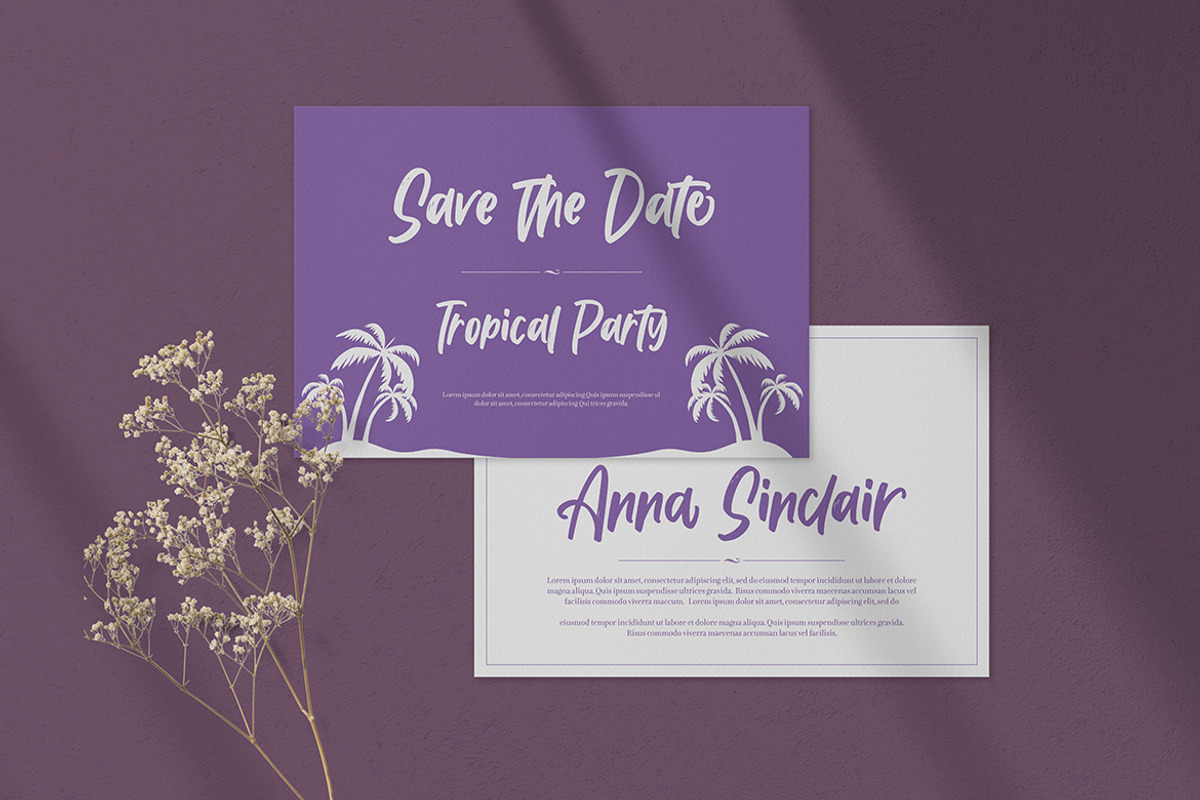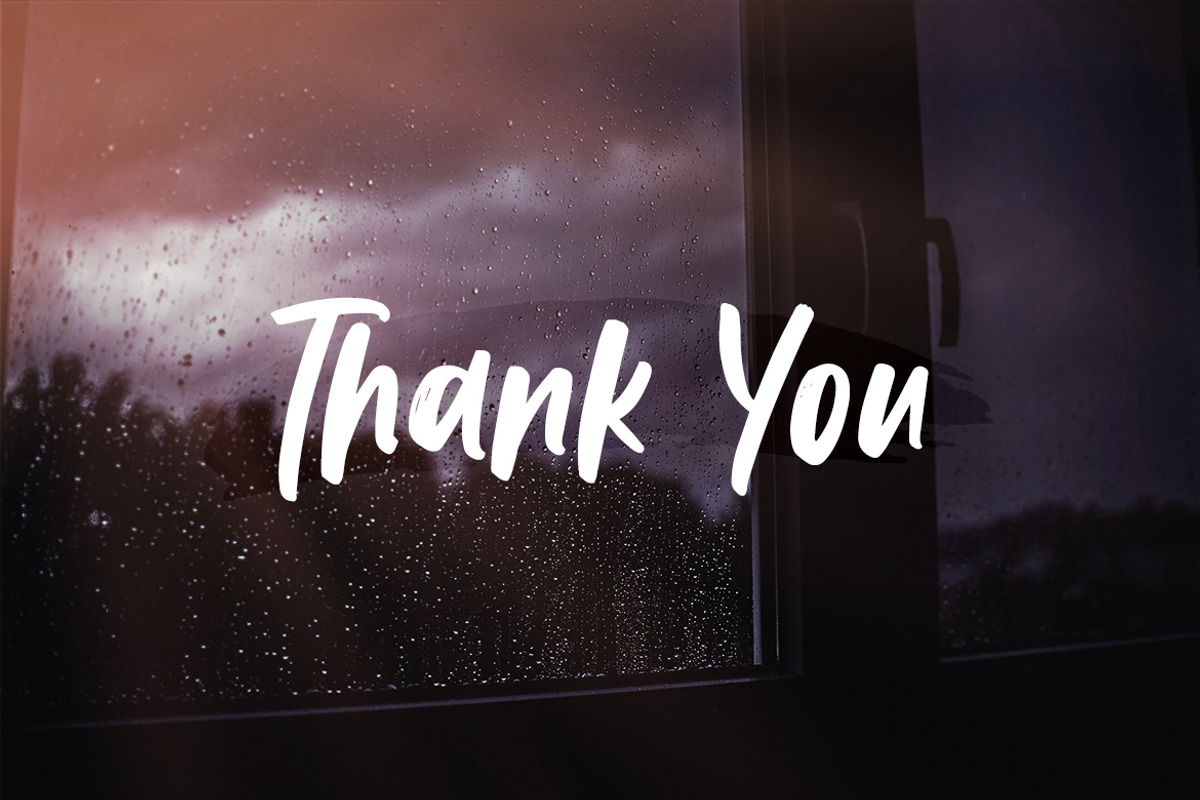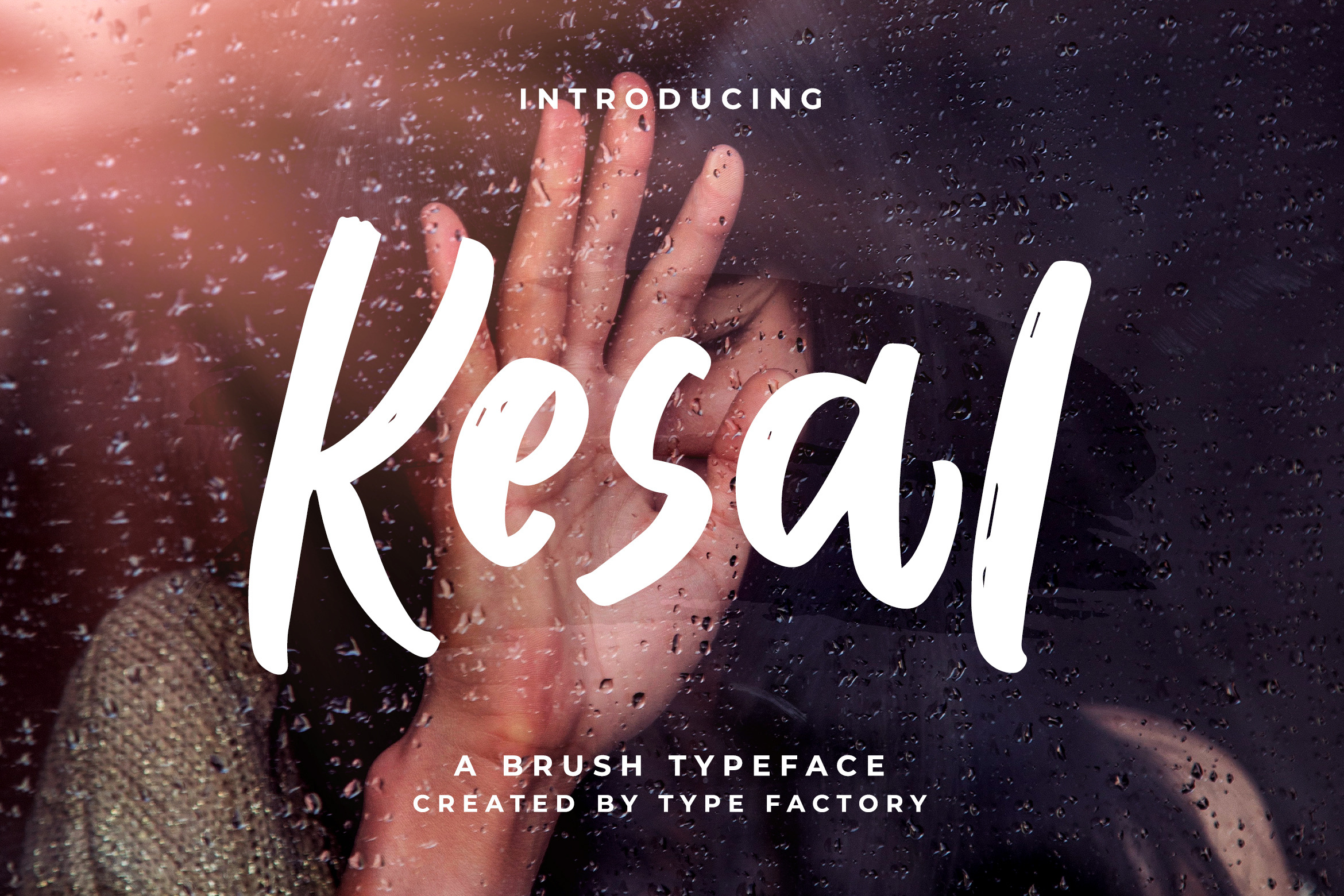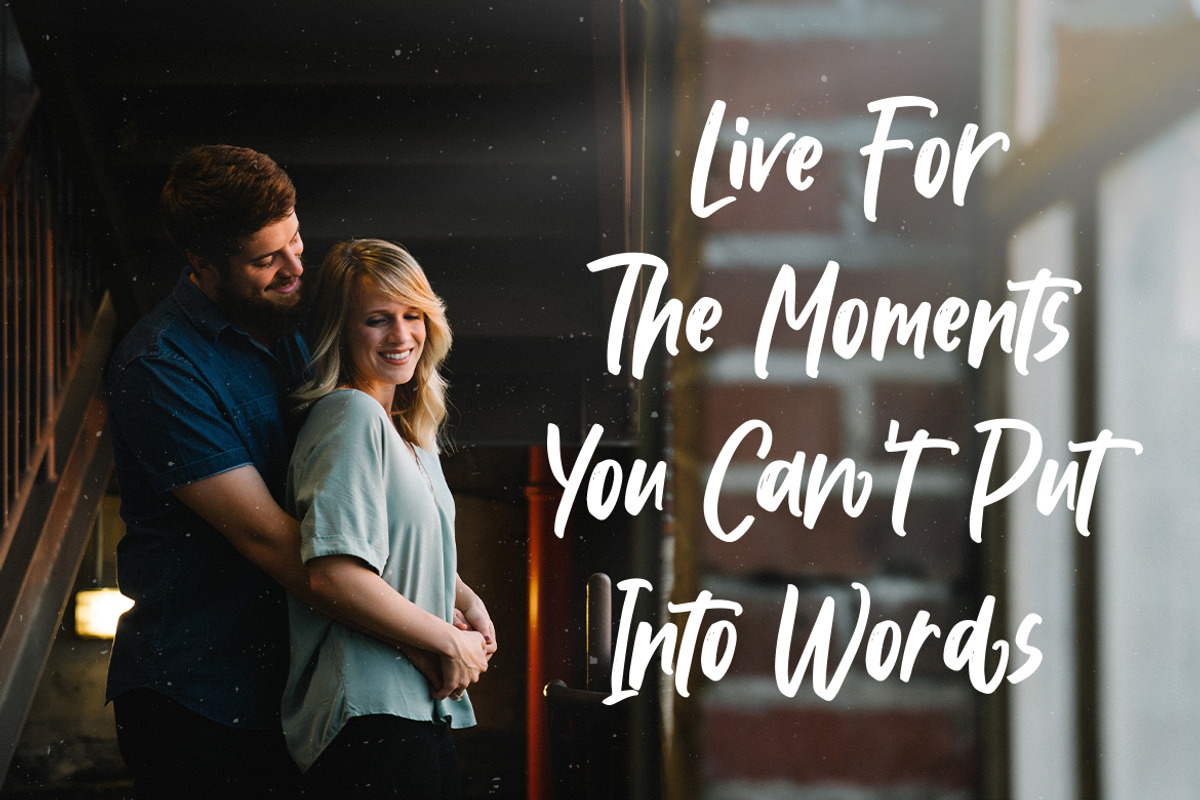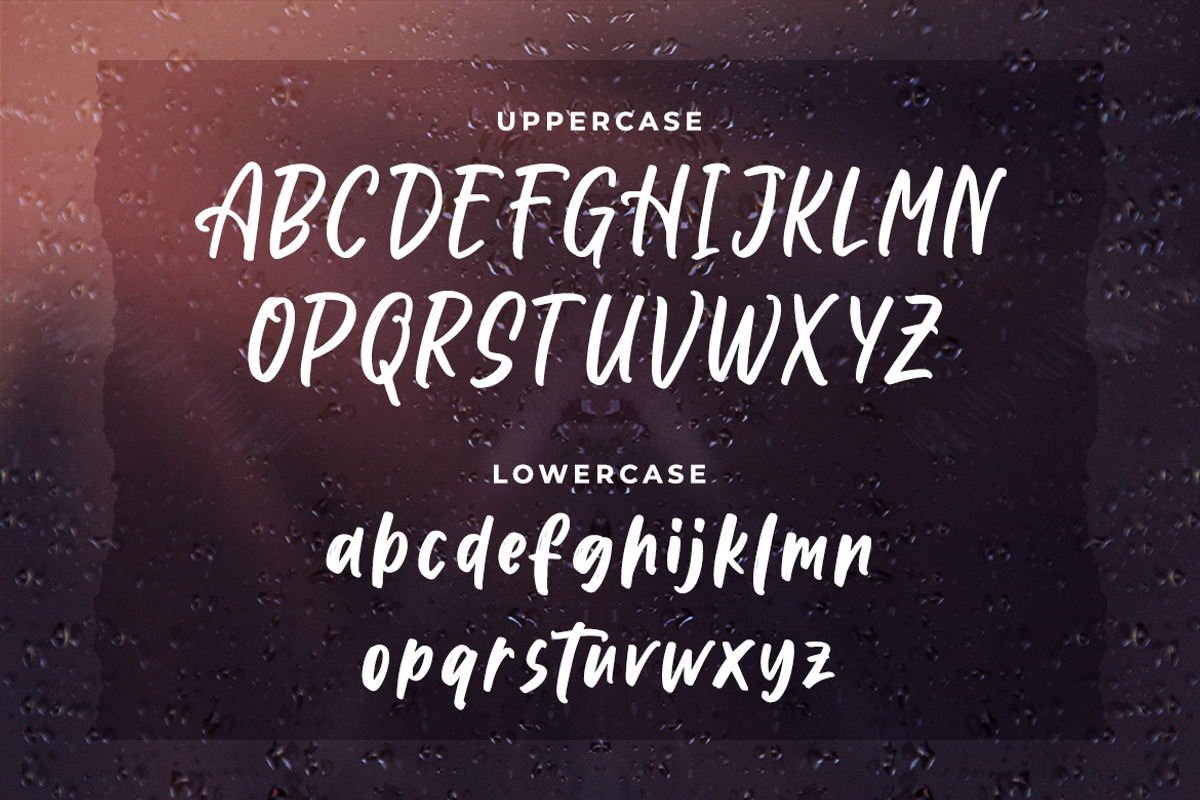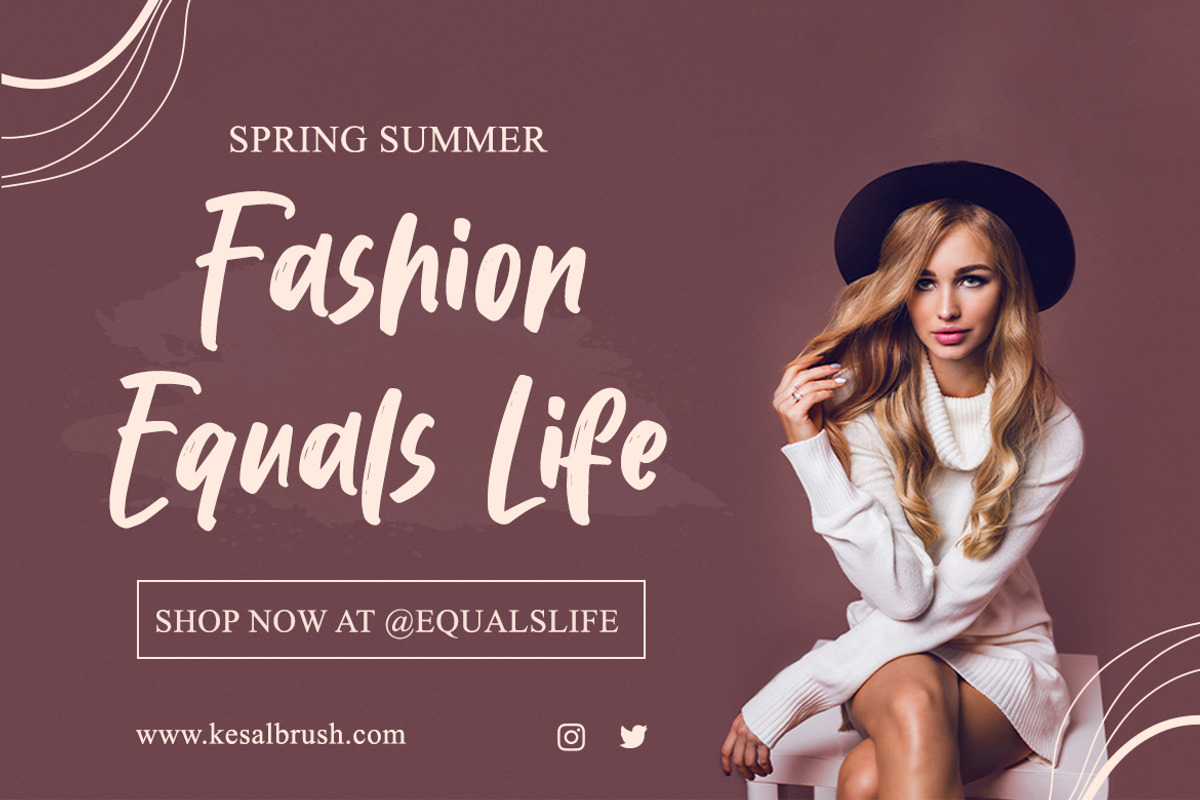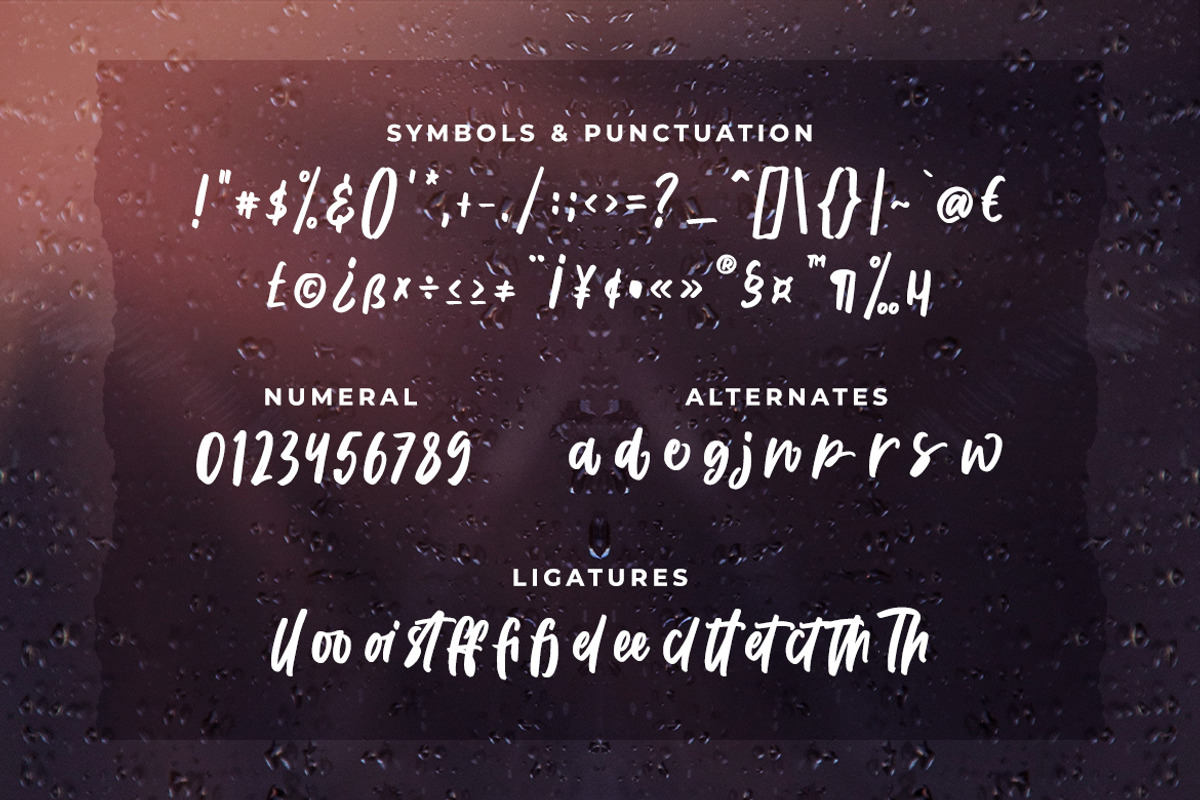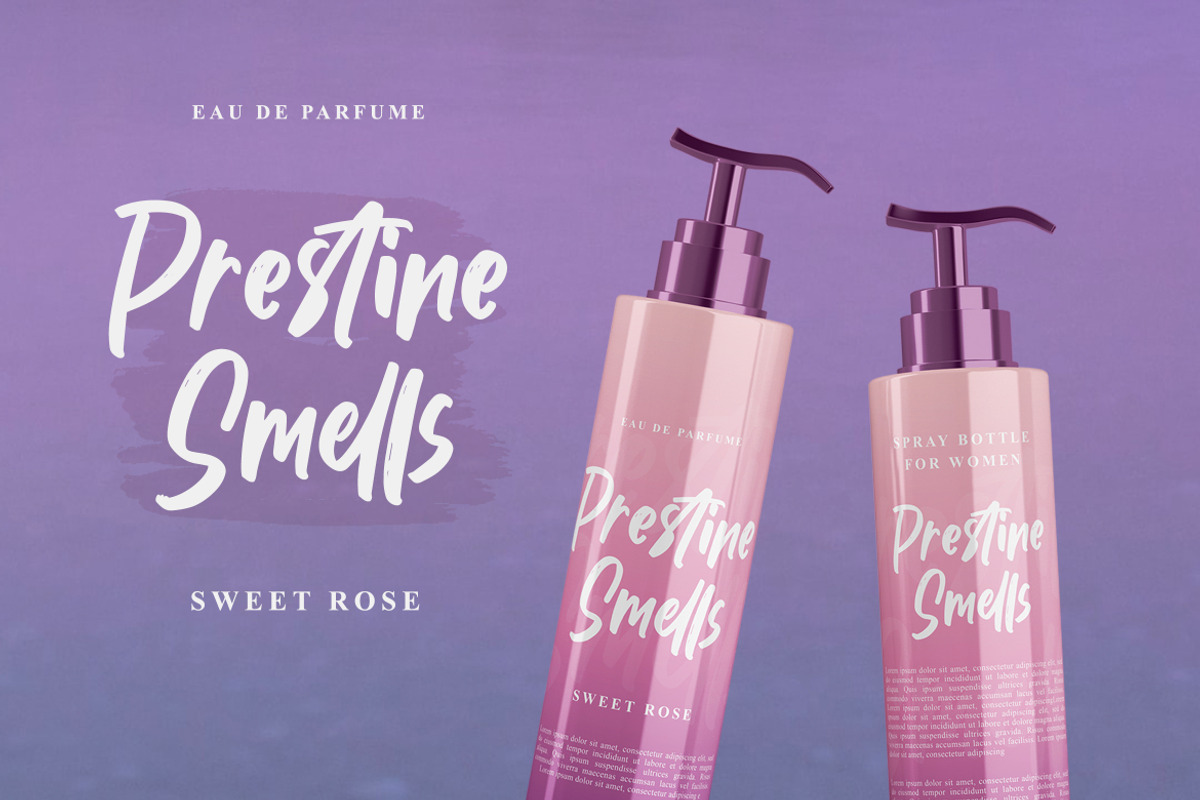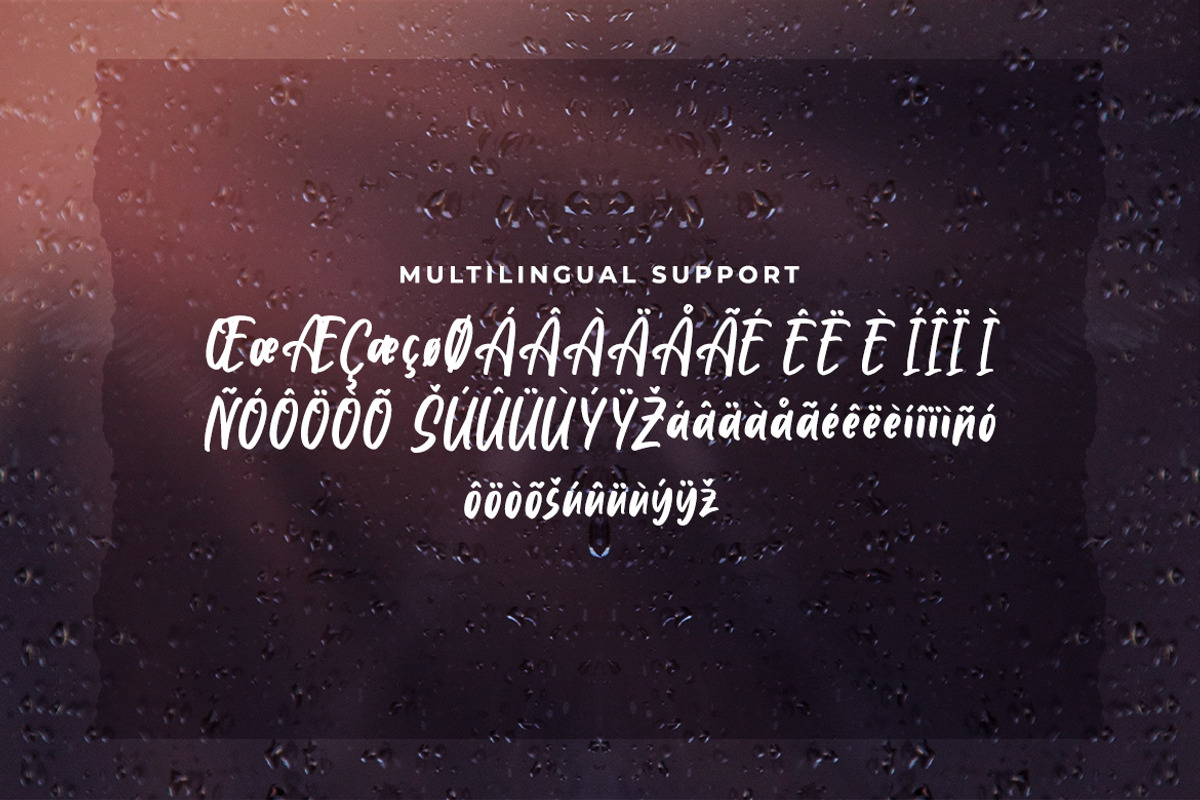
Kesal - Brush Typeface
Kesal is a elegant and beautiful brush font. It has a elegant style and is perfect for creating original designs. This casual brush font is really great for a logo, clothing, quotes, headings, wedding invitations, posters, and many others.
- Symbols & Punctuation
- Numeral